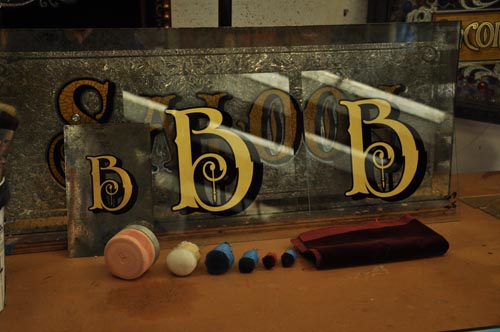
I have a few sample pieces I am getting ready to turn the gold on today so when I came out to the studio this morning the light on them seemed great for a photograph. The Spinnets are the small velvet covers pads in front of the samples.
Gold Leaf Spinnets